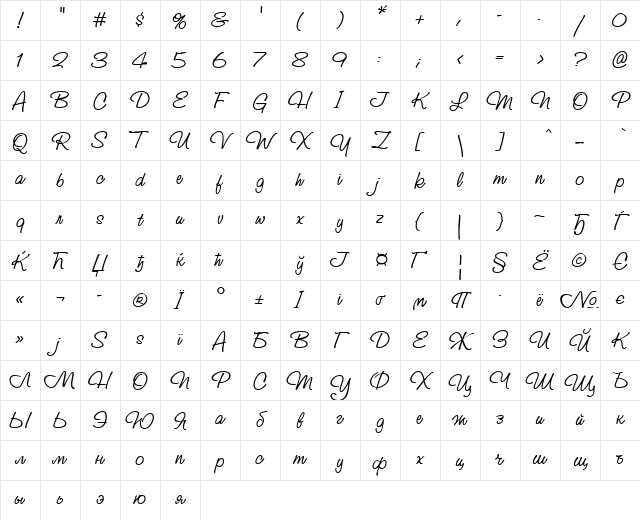
StudioScriptCTT Regular
Design Context for StudioScriptCTT
StudioScriptCTT flows with the natural rhythm of handwritten lettering, making it ideal for designs that call for warmth and personal expression.
Font Pairing: Combine StudioScriptCTT with a simple geometric sans for maximum contrast - the tension between flowing curves and clean structure is a classic typographic pairing.
Pro Tip: Use StudioScriptCTT for short runs of text - names, titles, or taglines. Extended body copy in script faces tires the eye quickly.